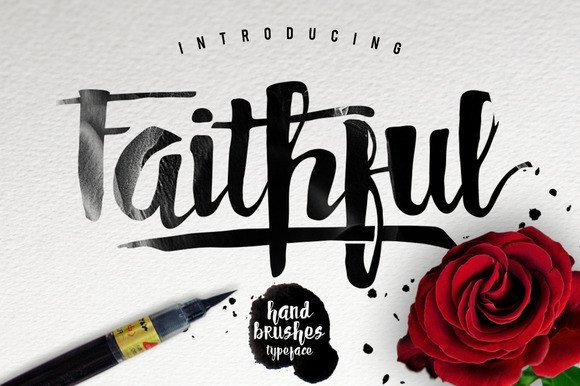
Designing with Heart: The Faithful Font
Have you ever stared at a blank page, struggling to find the perfect words to express your vision? You’re not alone. For creatives, those moments of uncertainty can be daunting. But what if the right words were at your fingertips, waiting to bring your ideas to life? That’s where the Faithful Font comes in – a brush script font that’s as reliable as it is beautiful.
Designed to adapt to any design, the Faithful Font is the perfect companion for your creative projects. Whether you’re crafting a wedding invitation, a marketing campaign, or a personal blog, this gorgeous font will help you convey your message with conviction. As a valuable addition to any designer’s toolkit, the Faithful Font offers a level of flexibility and persuasion that’s hard to resist.
Key Features of Faithful Font
- Unique Characteristics: Faithful Font features a unique blend of modern and classic elements, resulting in a distinctive and elegant appearance.
Review of Faithful Font
Overall, I think Faithful Font is a solid choice for any design project. Here are some things that I really like about it:
- ✨ Unique aesthetic: Faithful Font has a distinctive style that sets it apart from other fonts. It’s perfect for designers who want to add a touch of personality to their work.
- ✨ High legibility: This font is easy to read, even at small sizes. I appreciate how well it holds up on different devices and screen resolutions.
- ✨ Versatility: Faithful Font works well for both body text and headlines. It’s a great choice for any project where you need a consistent font throughout.
However, there are a few limitations that I think are worth mentioning:
- ⚠️ Limited language support: Unfortunately, Faithful Font only includes a limited set of characters, which can be a problem if you need to use it for languages that require a wider character set.
- ⚠️ Not suitable for extremely small sizes: While Faithful Font is highly legible, it can start to look a bit pixelated when used at very small sizes.
Overall, I think Faithful Font is a great choice for designers who want a unique and versatile font. Just be aware of its limitations and use it accordingly.
Practical Application Guide for Faithful Font
The Faithful Font is ideal for:
Creating custom typography for logos and branding.
Designing posters and flyers for events or promotions.
Adding a touch of elegance to presentations and documents.
Experimenting with unique typography in graphic design projects.
Alternatives to Faithful Font for Designers
Avenir Next
Avenir Next is a sans-serif font designed by Jean François Porchez, perfect for use in digital products and publications. It’s known for its clean and modern aesthetic, making it ideal for body text and titles. Compared to Faithful Font, Avenir Next has a more geometric feel and is designed specifically for digital use.
Merriweather is a classic serif font designed by Eben Sorkin, suitable for use in print and digital media. It’s known for its elegant and refined feel, making it perfect for use in body text, titles, and headings. Compared to Faithful Font, Merriweather has a more traditional and timeless feel, with a greater emphasis on readability.